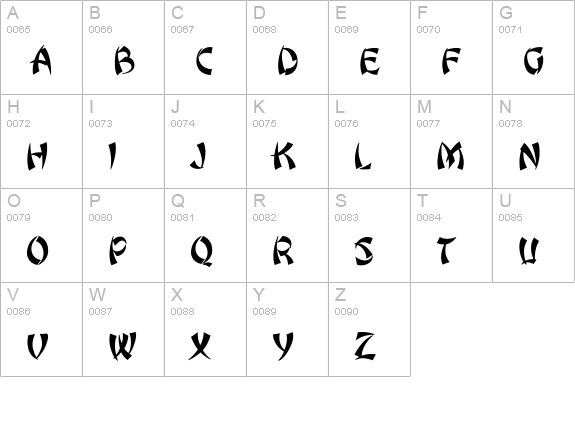
Taipeh font is a stunning display typeface that exudes elegance and sophistication. Its unique and modern design makes it perfect for a wide range of creative projects, from branding and logo design to editorial layouts and website headers. With its clean lines and balanced proportions, Taipeh font effortlessly catches the eye and commands attention. One of the most remarkable features of Taipeh font is that it is available for free download at FontsMarket.com. This means that designers and creatives can easily access this exceptional font without any cost, making it an ideal choice for those on a budget or looking to experiment with new typographic styles. The versatility of Taipeh font is evident in its wide range of weights and styles, allowing for endless possibilities when it comes to typography. Whether you're looking for a bold and impactful headline or a delicate and refined script, Taipeh font has got you covered. The legibility of this font is exceptional, ensuring that your message is conveyed clearly and effectively. Each character is meticulously crafted, resulting in a seamless and harmonious visual experience. The attention to detail in Taipeh font sets it apart from other typefaces, making it a truly distinctive choice for any project. Whether you're a professional designer or a beginner exploring the world of typography, Taipeh font is a valuable addition to your font library. Its seamless compatibility with various design software and platforms ensures a smooth and hassle-free integration into your creative workflow. In conclusion, Taipeh font is a must-have for anyone in search of a versatile and visually stunning typeface. With its free availability for download at FontsMarket.com, it is an accessible choice that does not compromise on quality. Embrace the beauty and elegance of Taipeh font and elevate your designs to new heights.